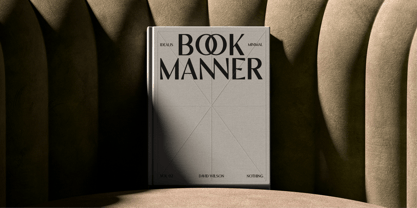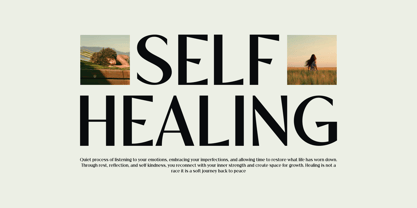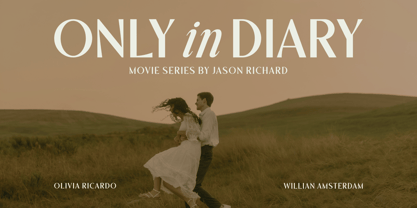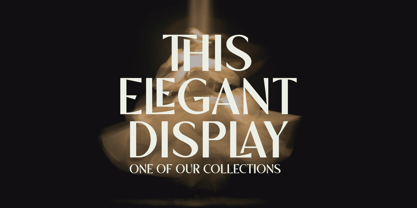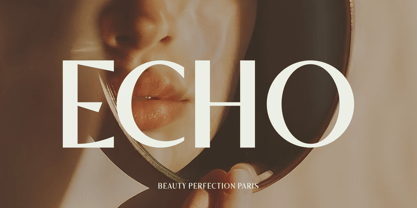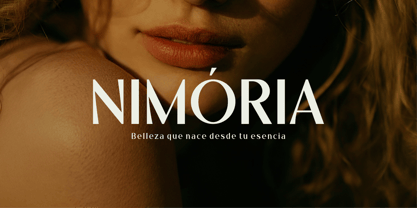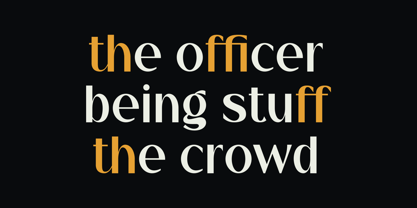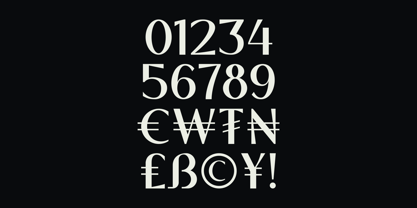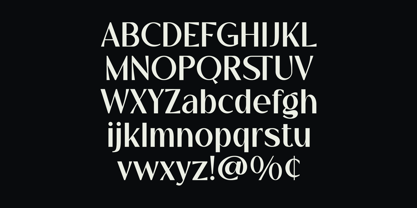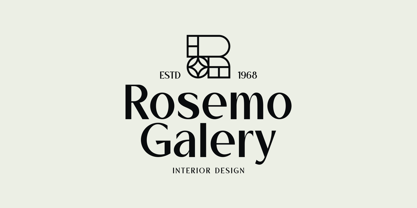
Negen
by Marvadesign
The Negen Font Family was designed by Febrie Setiawan and published by Marvadesign. Negen contains 1 styles. More about this family
NEGEN is a contemporary display sans-serif font that blends sharp geometric precision with graceful, sculptural curves, resulting in a uniquely modern yet timeless aesthetic. Each character is crafted with intentional asymmetry and refined tapering details, giving the typeface a sense of movement and sophistication. Its tall, confident letterforms pair clean edges with subtle ornamental touches, making NEGEN stand out in branding, editorial layouts, posters, and high-end visual identities. The font showcases beautifully designed ligatures, smooth transitions, and expressive alternations that elevate typography into an art form.
Designers: Febrie Setiawan
Foundry: Marvadesign